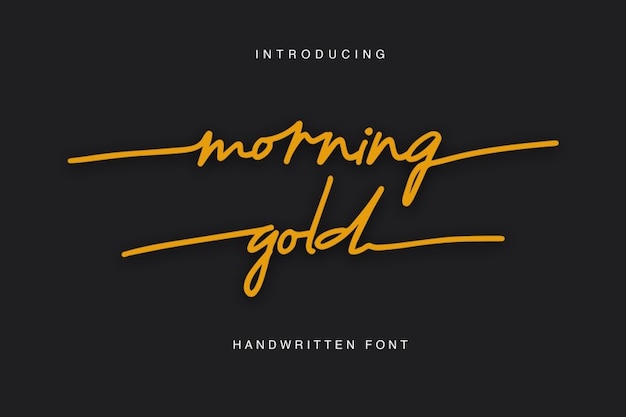
Morning Gold Font
It is a font that exudes elegance and opulence. Its handwritten style adds a personal touch to your designs, while the shimmering golden accents bring a sense of luxury and sophistication. Whether you're crafting wedding invitations, branding a high-end product, or simply want to convey a sense of richness, "Morning Gold" is your golden ticket to making a stylish statement. It's the font equivalent of a sunrise over a treasure trove, setting the tone for a day of grandeur and grace.